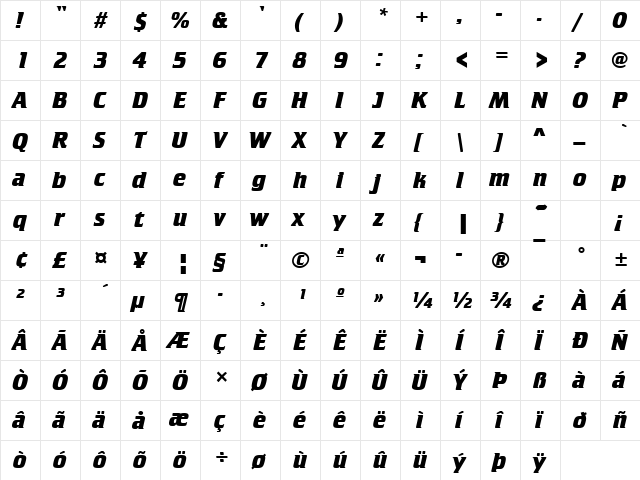
URWCrisiumT Bold
Design Context for URWCrisiumT Typeface
URWCrisiumT offers clean, dependable letterforms without strong stylistic allegiance, making it a practical choice for designers who need flexibility. Its bold stroke weight gives it real presence on the page.